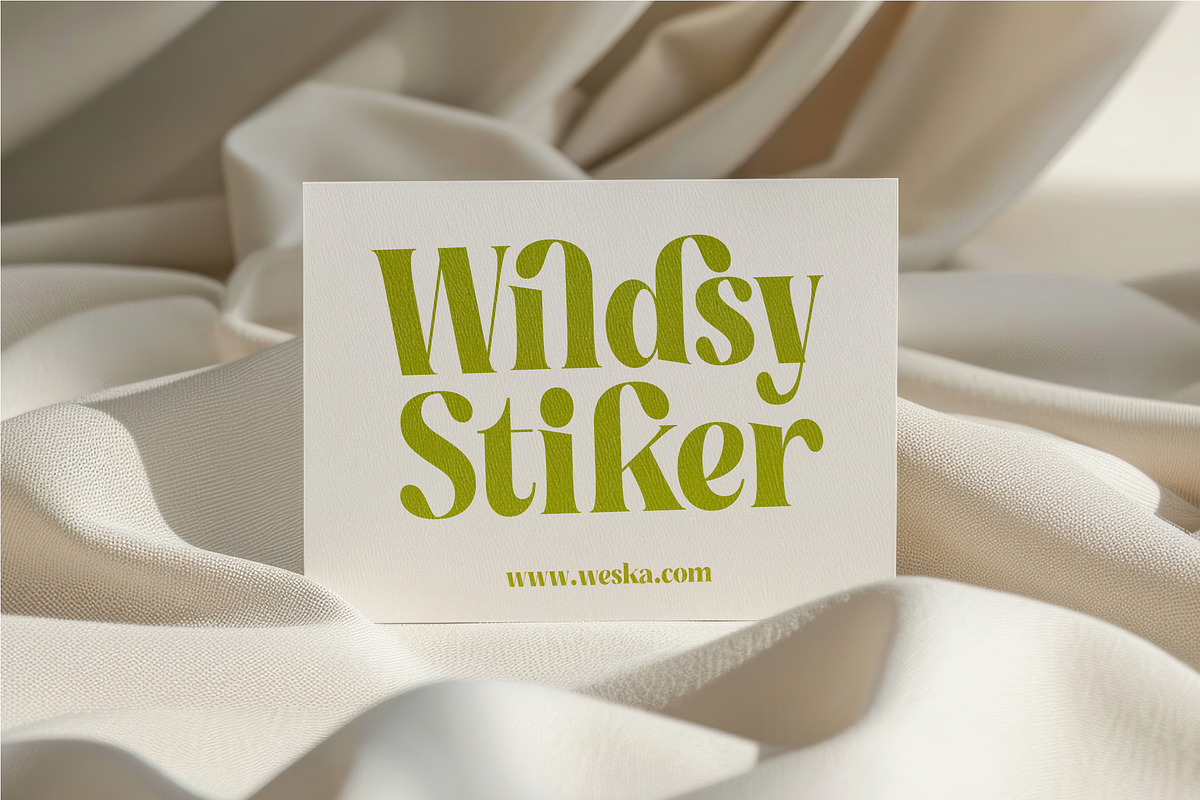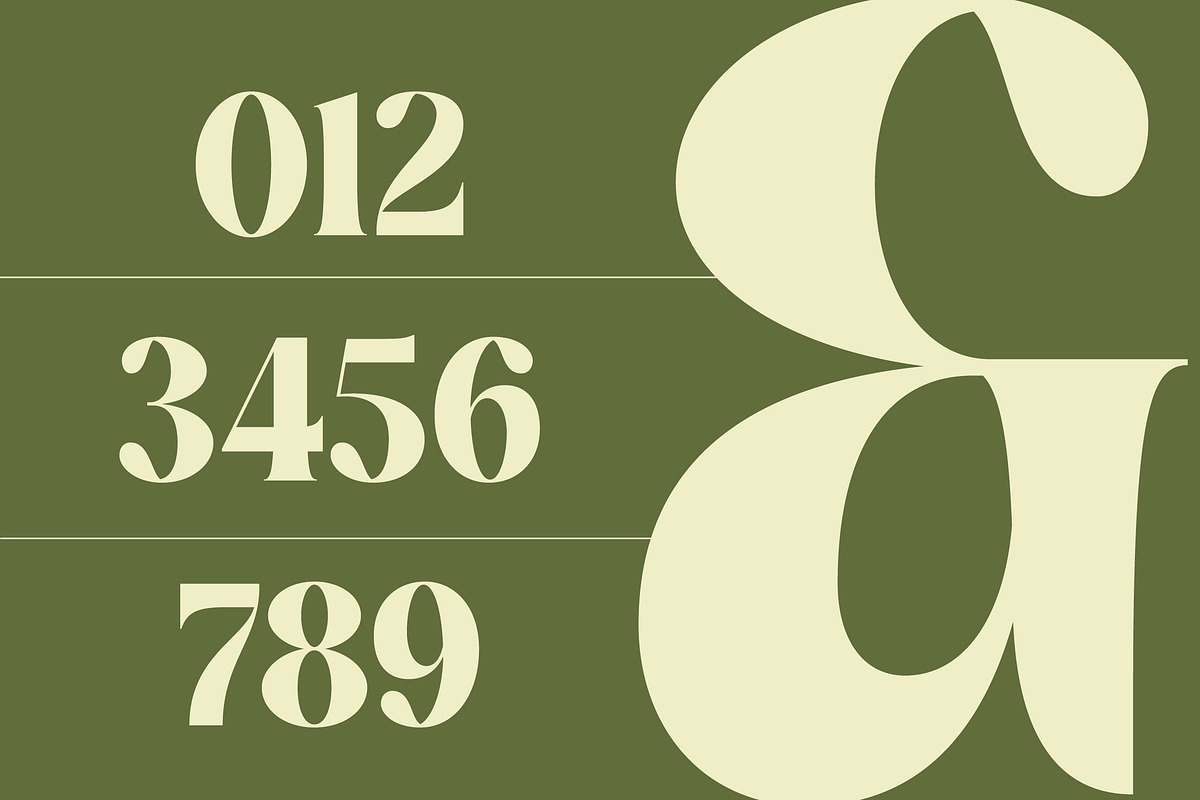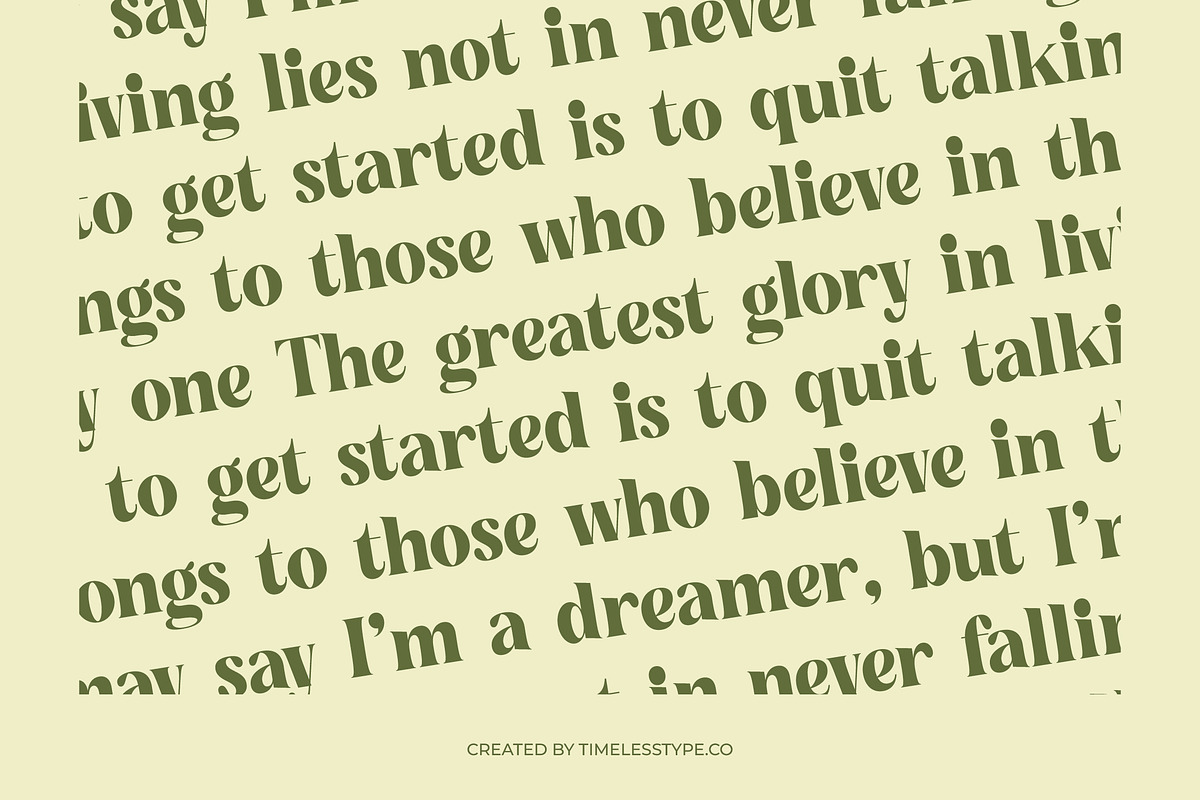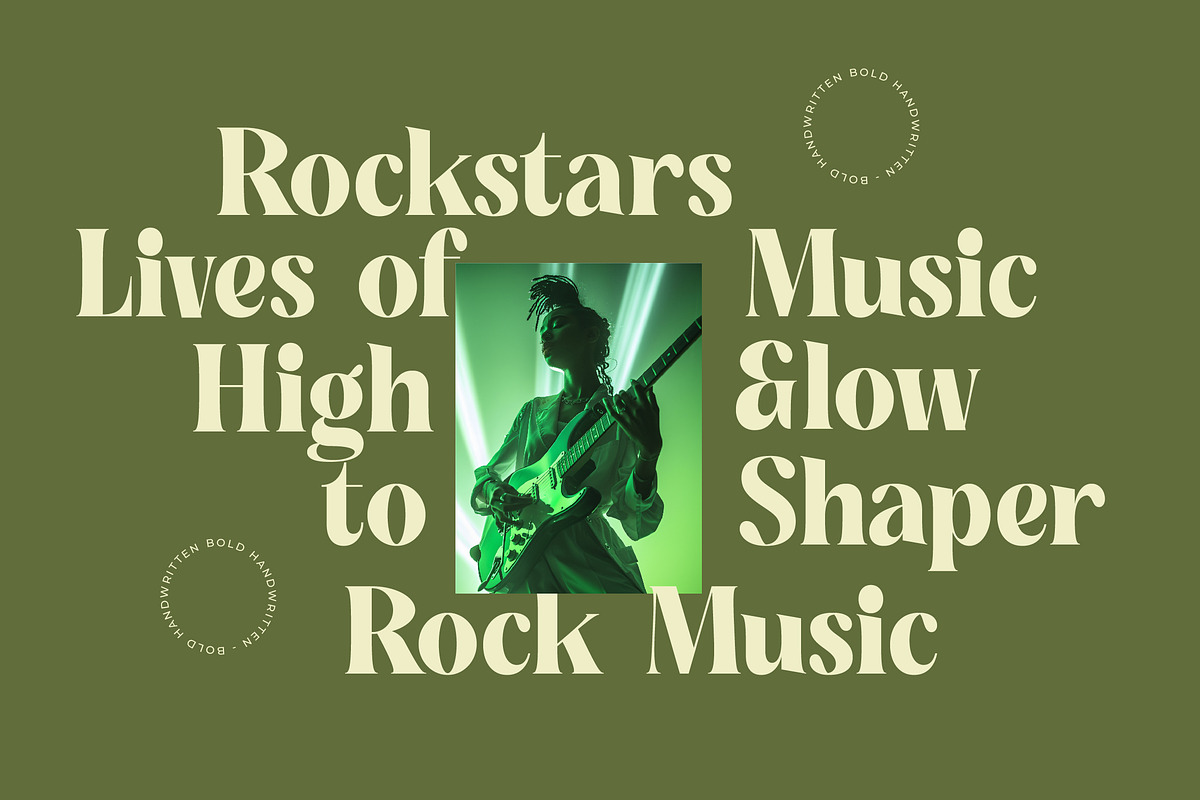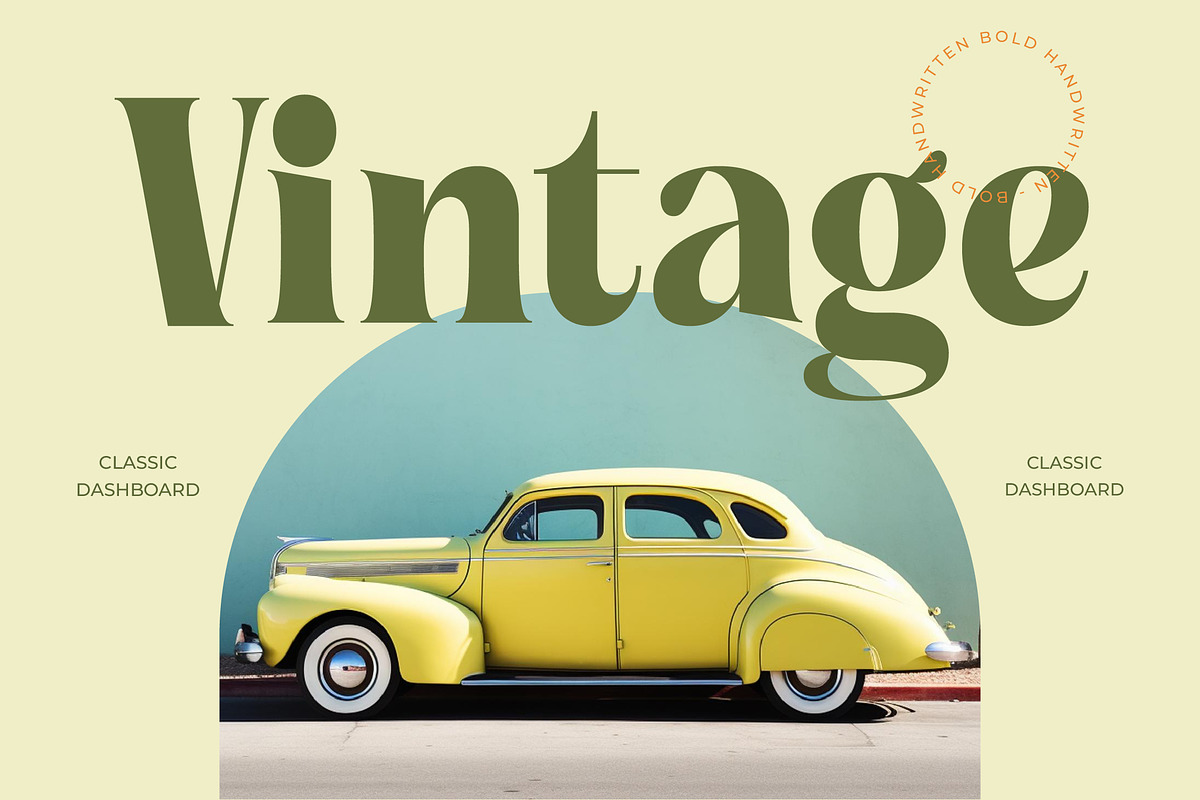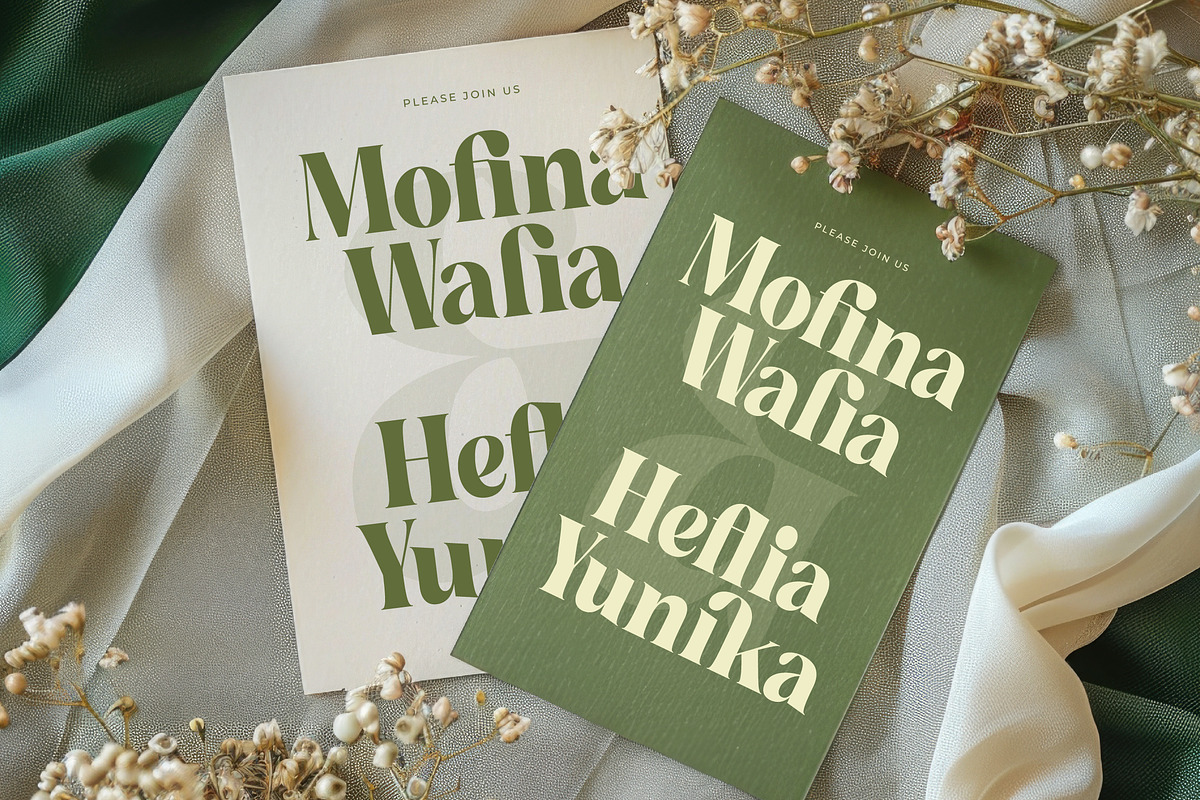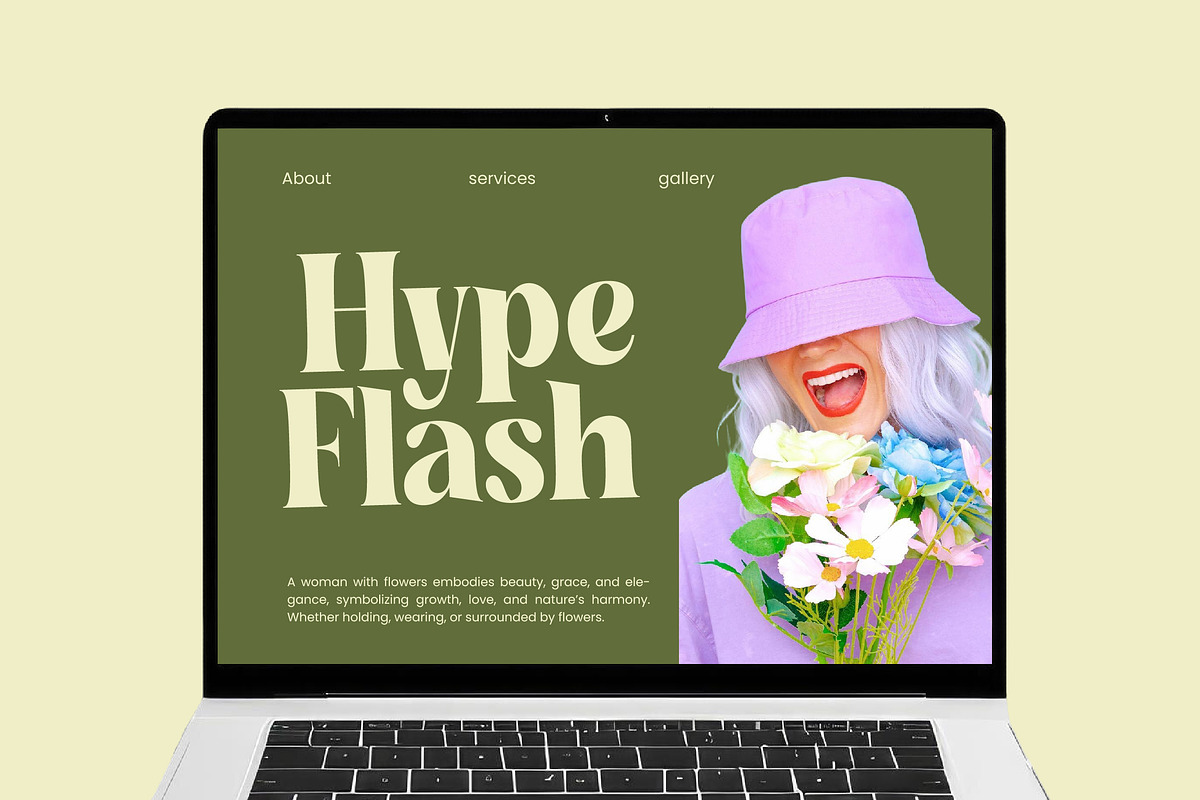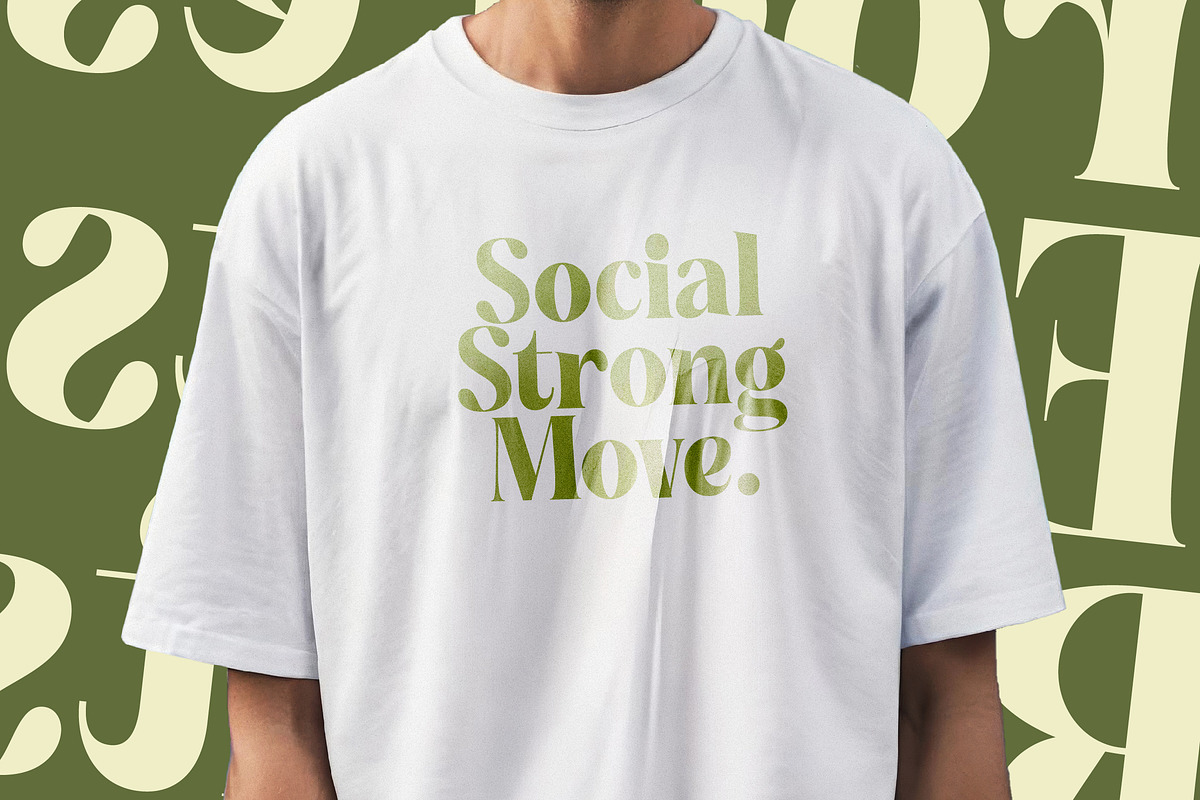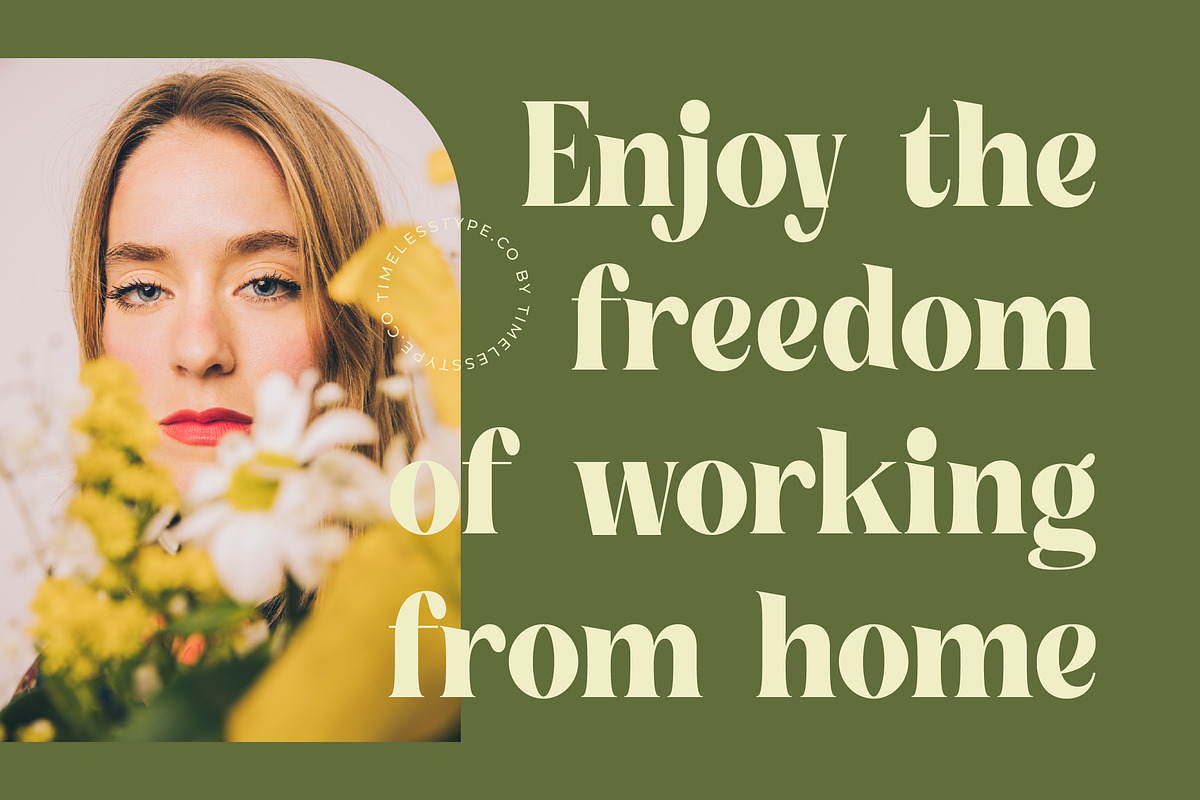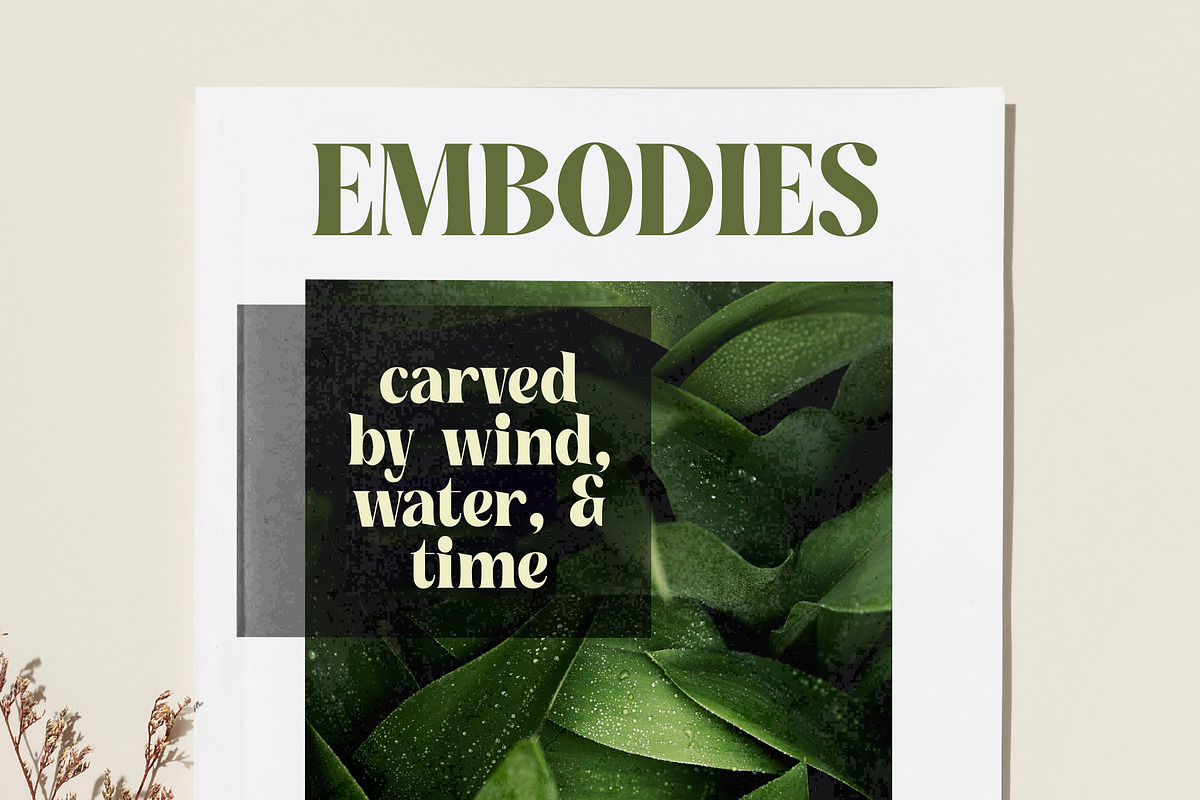
Buffery Reflika Modern Bold Serif
Elevate your creative vision with the timeless elegance of Buffery Reflika, a typeface designed to command attention while maintaining a graceful silhouette. This masterfully crafted font bridges the gap between classic heritage and contemporary chic, ensuring your designs stand out with effortless sophistication.
Inspired by the organic curves of mid-century aesthetics and the crisp precision of modern minimalism, the font evokes a sense of natural luxury and high-end artisanal craftsmanship. It draws from a palette of earth-toned elegance, suggesting a visual story of refined taste and historical depth reimagined for the digital age.
Defining the pinnacle of style, this modern serif display is engineered for maximum branding impact, offering a luxury typography solution for those who seek perfection. The high-contrast serif strokes provide a rhythmic flow that transforms simple text into a curated piece of art, making it an essential editorial font for high-fashion layouts.
As the modern serif trend continues to dominate the creative industry, designers are seeking character-driven typography that offers more than just legibility. This typeface meets the demand for editorial display fonts that feel both nostalgic and forward-thinking, perfectly capturing the current aesthetic movement toward new-vintage excellence.
Versatile and commanding, it is the ideal choice for high-end logo design and comprehensive corporate branding projects that require a unique visual identity. From luxury packaging and upscale wedding invitations to high-impact fashion spreads and digital editorial content, its presence is always felt.
Unlock a world of creative possibilities with over 380 glyphs, featuring a rich collection of ligatures and alternates that allow for custom-tailored headlines. With extensive multilingual support and a full suite of international characters, this font ensures your message resonates globally while maintaining its signature swashes and flair.
- Ligature 19 Alternate 40